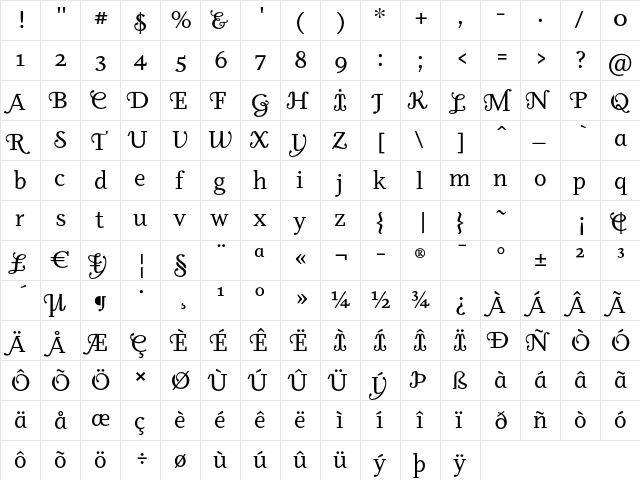
Odile Initials
| Foundry | Sibylle Hagmann | Kontour |
| Designer | Sibylle Hagmann |
Odile offers clean, dependable letterforms without strong stylistic allegiance, making it a practical choice for designers who need flexibility.